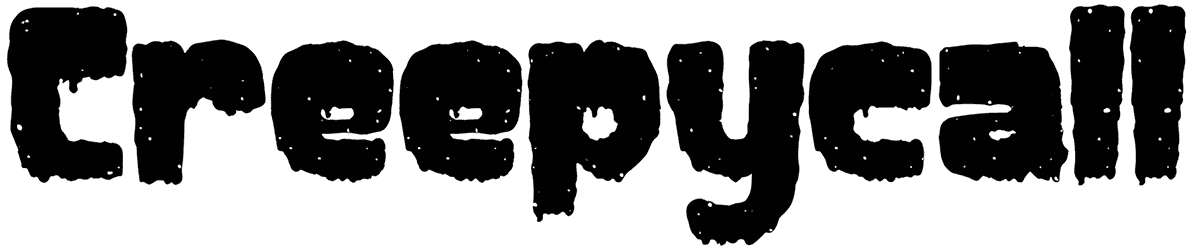
Creepycall Font
Sink your teeth into Creepycall for a vampire vibe. This masterpiece is functional when the spookiest day of the year is coming and you need a horror font for exciting party invitations or scary banners.
Using this grunge font, you can release your dark side and create the ideal level of ghosting to complete your design and shout out all the scary ideas in your mind.